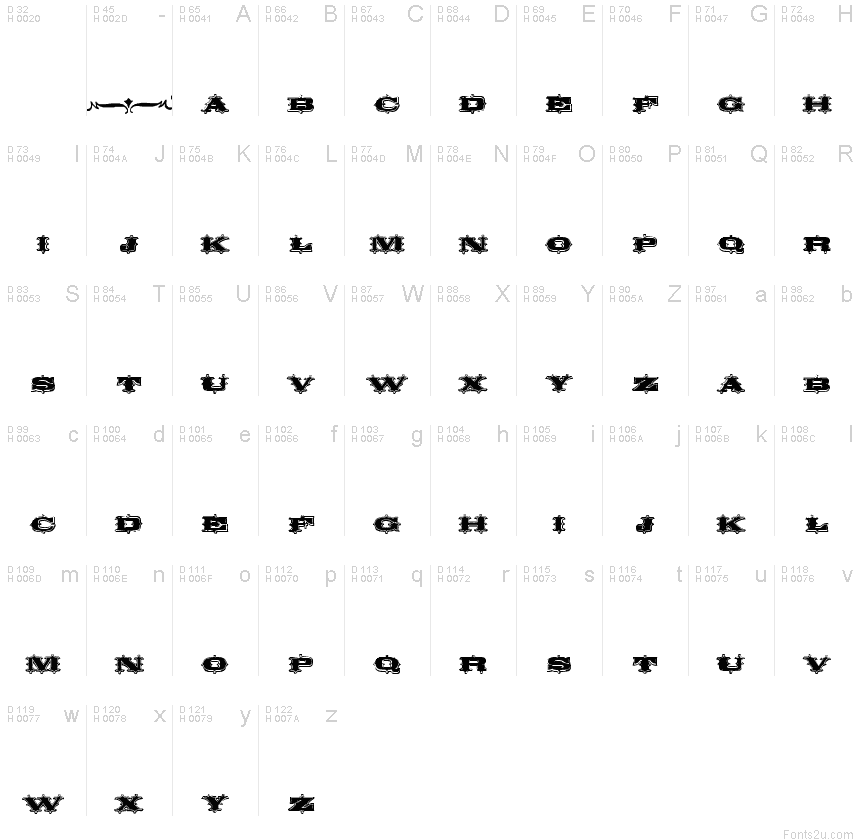
Circus Ornate
Circus Ornate font by Typographer Mediengestaltung is a free decorative vintage display typeface that feels like it’s been pulled straight from a weathered carnival banner. Thick, blocky letterforms are wrapped in inky flourishes and spiky edges, creating a dense, almost woodcut texture that commands attention from a distance. There’s a slight wobble and grit to the shapes that makes everything feel hand-painted, loud, and a little dangerous—in the best way.
Using Circus Ornate, your titles instantly read as spectacle: bold posters, circus or sideshow branding, Halloween flyers, themed event invites, retro game graphics, and statement T‑shirts all benefit from its chaotic drama. This free font shines when set big and bold; pair it with a simple condensed sans serif for small supporting text to keep the ornate letters easy to read and let the wild detailing stay center stage.